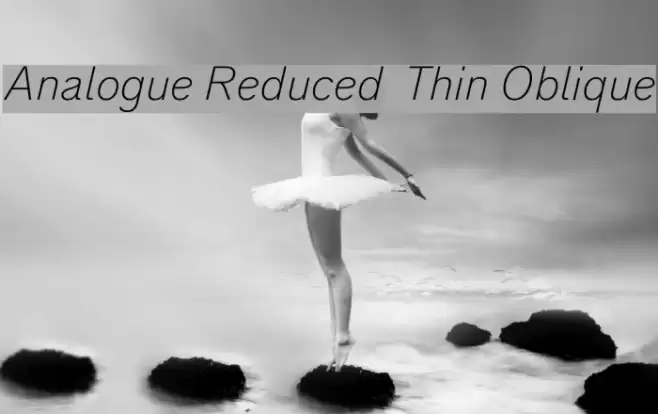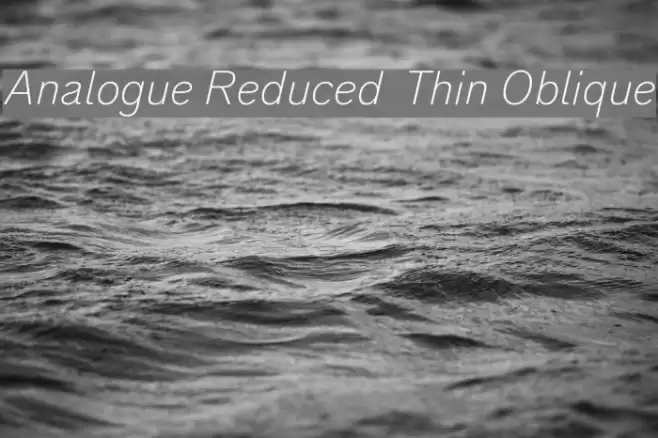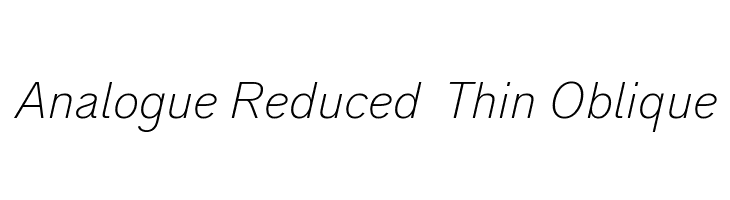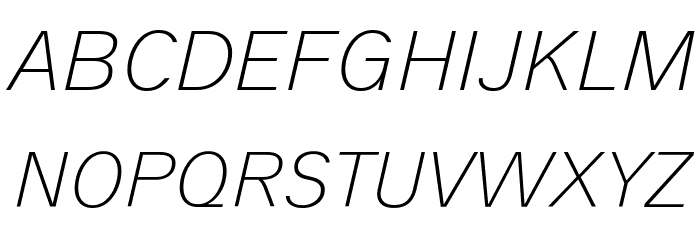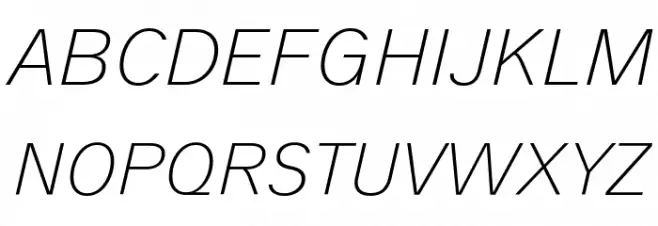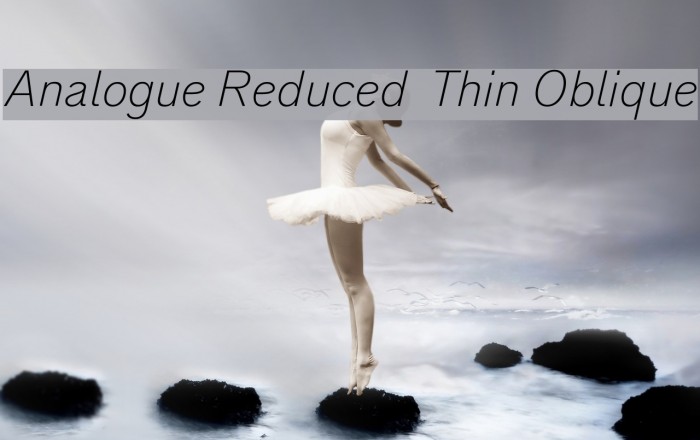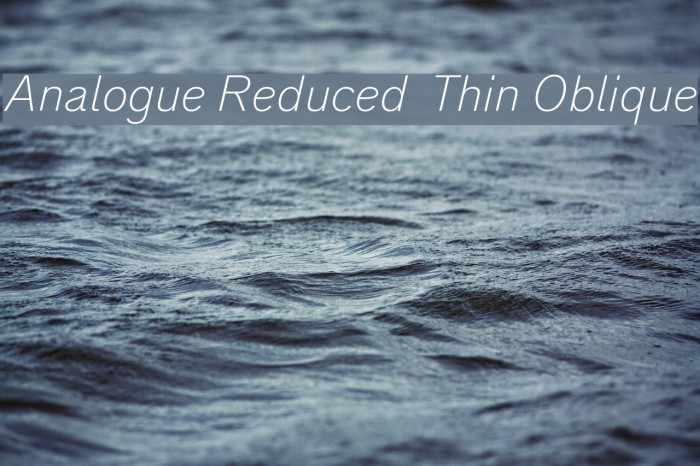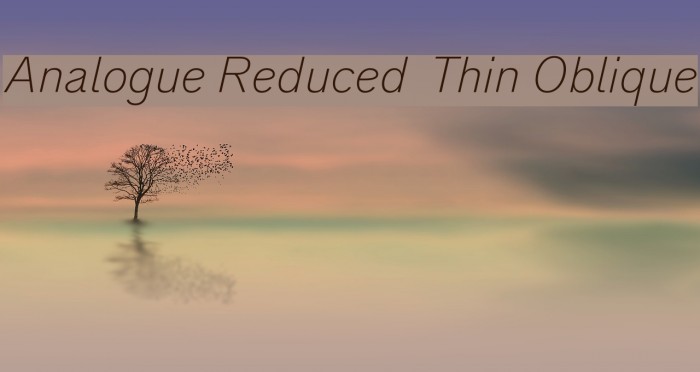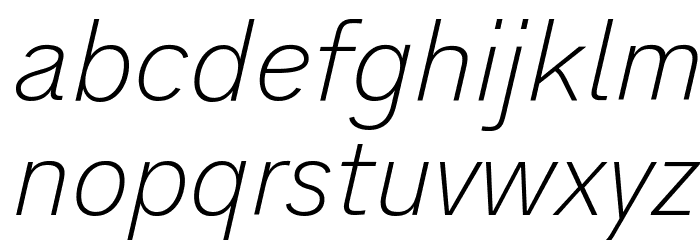
Analogue Reduced 36 Thin Oblique Font
Analogue Reduced 36 Thin Oblique Description
This font features a sleek and modern design with a thin, oblique style that gives it a sense of motion and elegance. The characters are clean and minimalistic, with a slight slant that adds a dynamic feel. The uppercase and lowercase letters maintain a consistent height and spacing, ensuring readability and a cohesive look. The numbers and special characters are designed to match the overall aesthetic, making this font versatile for various applications.
A sleek, thin, and oblique font with a modern, dynamic style from Uncategorized fonts.
- Proposed Projects: Ideal for modern branding, fashion magazines, tech company logos, and minimalist web design.
- Use Case: Headlines, Logos, Web design